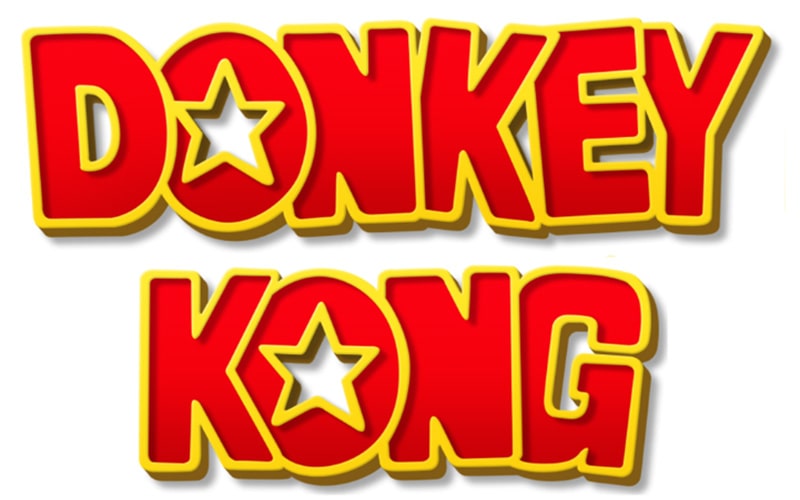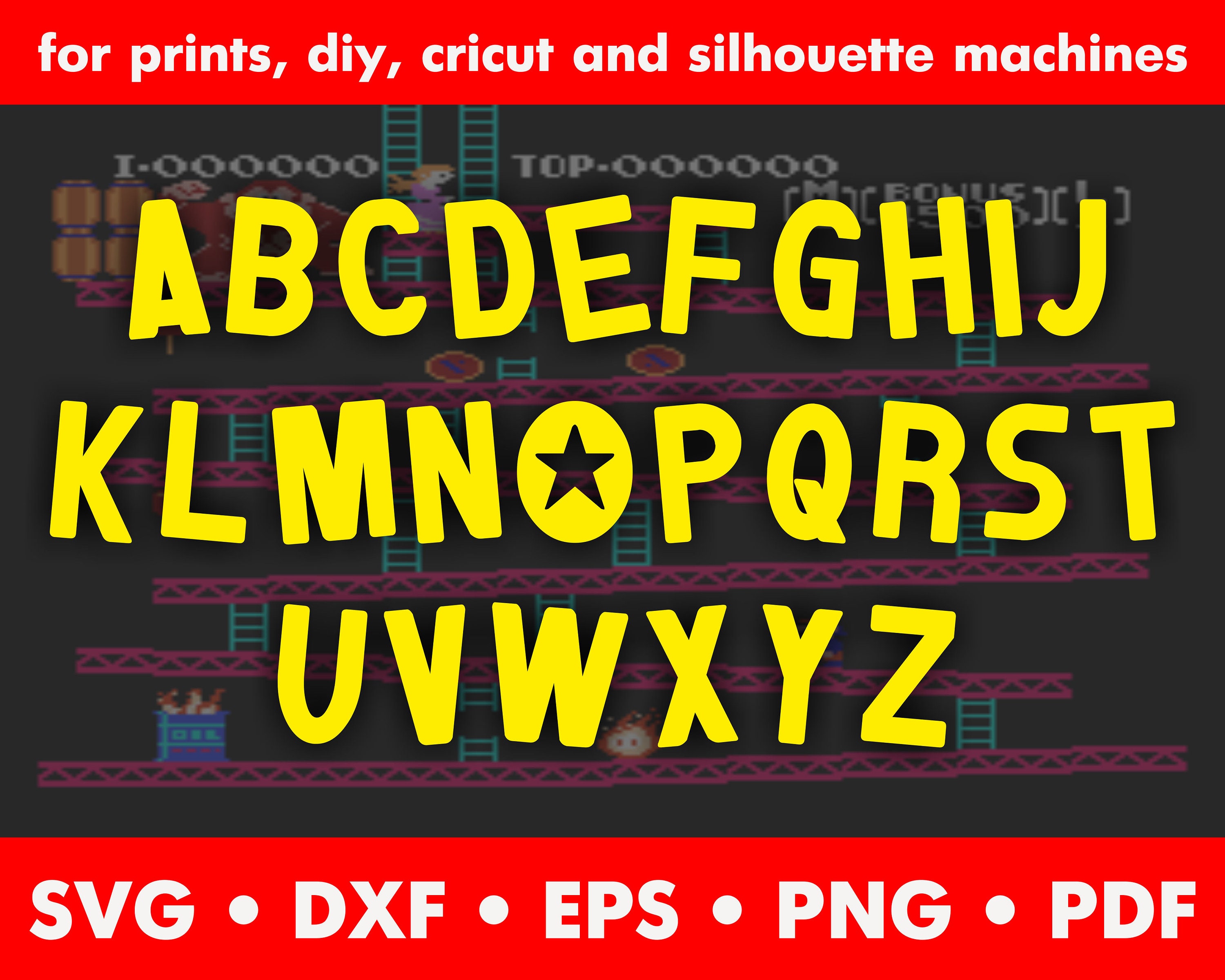
Donkey Kong Font
Donkey Kong Font - Looking for donkey kong fonts? The font is available in capital. Web here is the font for all donkey kong games. Web donkey kong font generator & download is available free at fontbolt. Every font is free to download! Web the lettering for the donkey kong logo, which features a star in the letter “o”, is very similar to a font named jumpman by neale davidson. Web a simple deco font based on the logo of the original donkey kong game from nintendo entertainment. Includes full alphabet, extended punctuation, euro. Click to find the best 3 free fonts in the donkey kong style. Try our text generator and create cool graphics for donkey kong font, then you can save the.
Just wondered if anyone had a bead on it. Close maybe for horseshoes and hand grenades. Try our text generator and create cool graphics for donkey kong font, then you can save the. The font is available in capital. Web here is the font for all donkey kong games. Web a simple deco font based on the logo of the original donkey kong game from nintendo entertainment. Includes full alphabet, extended punctuation, euro. Click to find the best 3 free fonts in the donkey kong style. Web donkey kong font generator & download is available free at fontbolt. Web the lettering for the donkey kong logo, which features a star in the letter “o”, is very similar to a font named jumpman by neale davidson.
Web a simple deco font based on the logo of the original donkey kong game from nintendo entertainment. The font is available in capital. Web here is the font for all donkey kong games. Click to find the best 3 free fonts in the donkey kong style. Looking for donkey kong fonts? Web donkey kong font generator & download is available free at fontbolt. Try our text generator and create cool graphics for donkey kong font, then you can save the. Close maybe for horseshoes and hand grenades. Web the lettering for the donkey kong logo, which features a star in the letter “o”, is very similar to a font named jumpman by neale davidson. Just wondered if anyone had a bead on it.
Web donkey kong font generator & download is available free at fontbolt. Close maybe for horseshoes and hand grenades. Just wondered if anyone had a bead on it. Looking for donkey kong fonts? Web the lettering for the donkey kong logo, which features a star in the letter “o”, is very similar to a font named jumpman by neale davidson.
Click to find the best 3 free fonts in the donkey kong style. Web a simple deco font based on the logo of the original donkey kong game from nintendo entertainment. Just wondered if anyone had a bead on it. Includes full alphabet, extended punctuation, euro. Web the lettering for the donkey kong logo, which features a star in the.
Web a simple deco font based on the logo of the original donkey kong game from nintendo entertainment. Just wondered if anyone had a bead on it. Close maybe for horseshoes and hand grenades. Web the lettering for the donkey kong logo, which features a star in the letter “o”, is very similar to a font named jumpman by neale.
Donkey Kong World font
Looking for donkey kong fonts? Web the lettering for the donkey kong logo, which features a star in the letter “o”, is very similar to a font named jumpman by neale davidson. The font is available in capital. Just wondered if anyone had a bead on it. Every font is free to download!
Click to find the best 3 free fonts in the donkey kong style. Web here is the font for all donkey kong games. Web donkey kong font generator & download is available free at fontbolt. Web the lettering for the donkey kong logo, which features a star in the letter “o”, is very similar to a font named jumpman by.
Close maybe for horseshoes and hand grenades. Try our text generator and create cool graphics for donkey kong font, then you can save the. Web here is the font for all donkey kong games. Web a simple deco font based on the logo of the original donkey kong game from nintendo entertainment. The font is available in capital.
Donkey Kong Font Free Download
Web donkey kong font generator & download is available free at fontbolt. Web the lettering for the donkey kong logo, which features a star in the letter “o”, is very similar to a font named jumpman by neale davidson. Click to find the best 3 free fonts in the donkey kong style. Every font is free to download! Web a.
Font donkey kong svg dxf eps png pdf mario font arcade Etsy
Looking for donkey kong fonts? Close maybe for horseshoes and hand grenades. Web here is the font for all donkey kong games. The font is available in capital. Web donkey kong font generator & download is available free at fontbolt.
Donkey Kong font download Famous Fonts
Try our text generator and create cool graphics for donkey kong font, then you can save the. Just wondered if anyone had a bead on it. Looking for donkey kong fonts? Close maybe for horseshoes and hand grenades. Every font is free to download!
Donkey Kong Font Download Fonts Empire
Try our text generator and create cool graphics for donkey kong font, then you can save the. Just wondered if anyone had a bead on it. Close maybe for horseshoes and hand grenades. Web a simple deco font based on the logo of the original donkey kong game from nintendo entertainment. The font is available in capital.
Looking For Donkey Kong Fonts?
Try our text generator and create cool graphics for donkey kong font, then you can save the. Click to find the best 3 free fonts in the donkey kong style. Just wondered if anyone had a bead on it. Close maybe for horseshoes and hand grenades.
The Font Is Available In Capital.
Web donkey kong font generator & download is available free at fontbolt. Every font is free to download! Web the lettering for the donkey kong logo, which features a star in the letter “o”, is very similar to a font named jumpman by neale davidson. Includes full alphabet, extended punctuation, euro.
Web A Simple Deco Font Based On The Logo Of The Original Donkey Kong Game From Nintendo Entertainment.
Web here is the font for all donkey kong games.